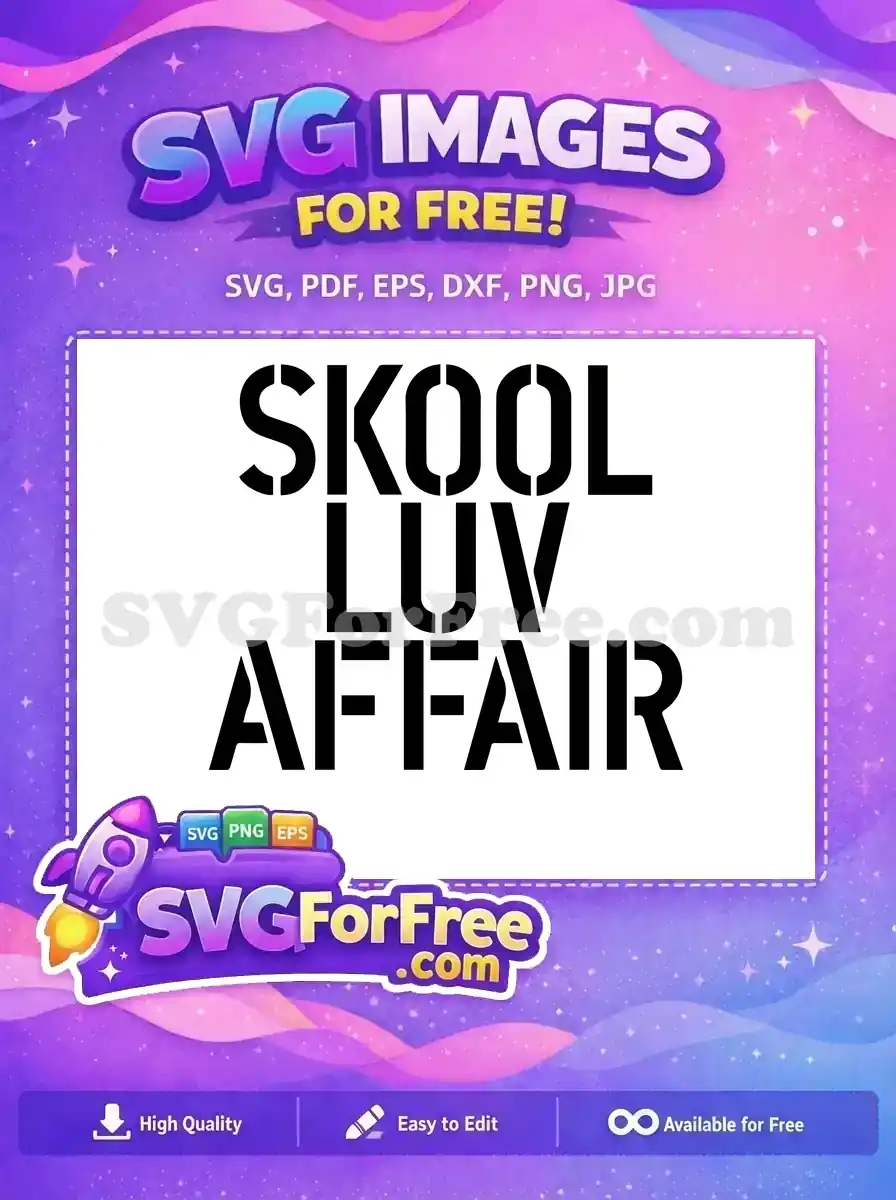
Get this free ‘SKOOL LUV AFFAIR’ stencil design! A bold, urban typography SVG perfect for creative projects. Enjoy this free, versatile vector graphic.